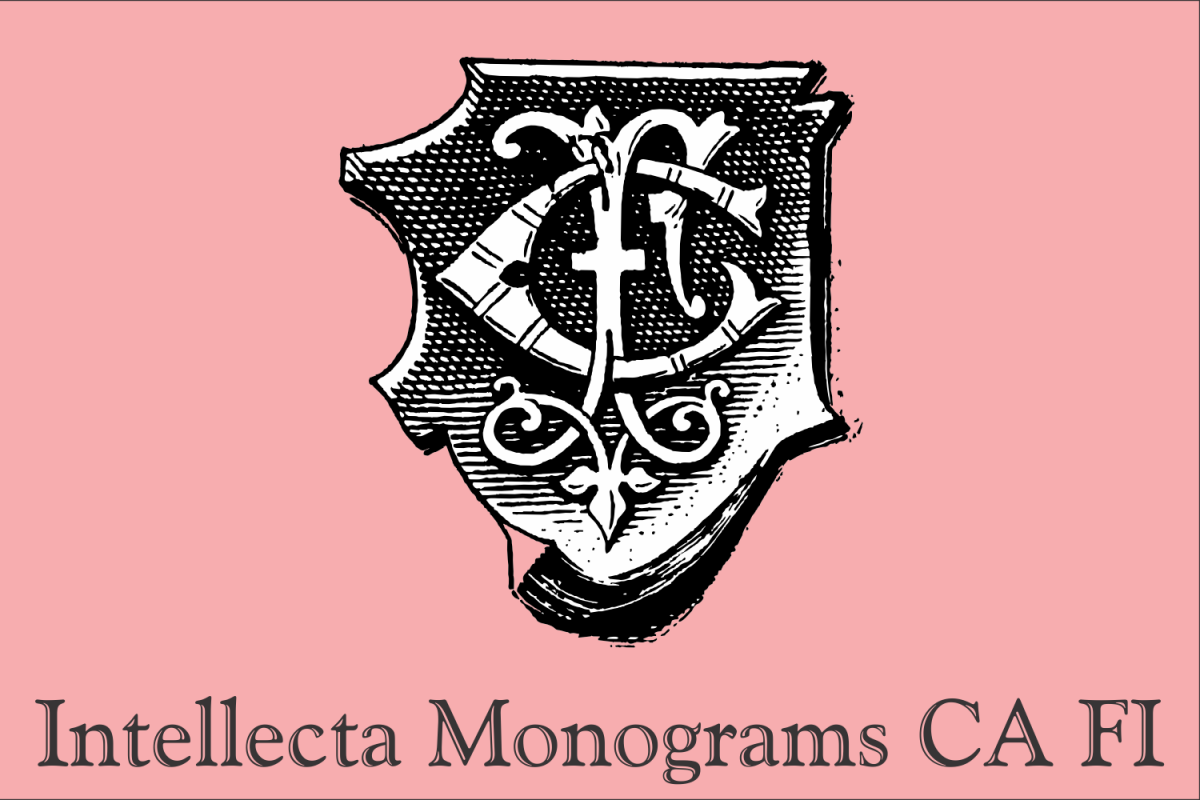
Intellecta Monograms CA FI
IntellectaMonograms is an extensive collection of ancient intrincate monograms, of all kinds, mainly. THIS FONTS CONTANS MONOGRAMS RANGES COMBINATIONS FROM "CA" TO "FI"